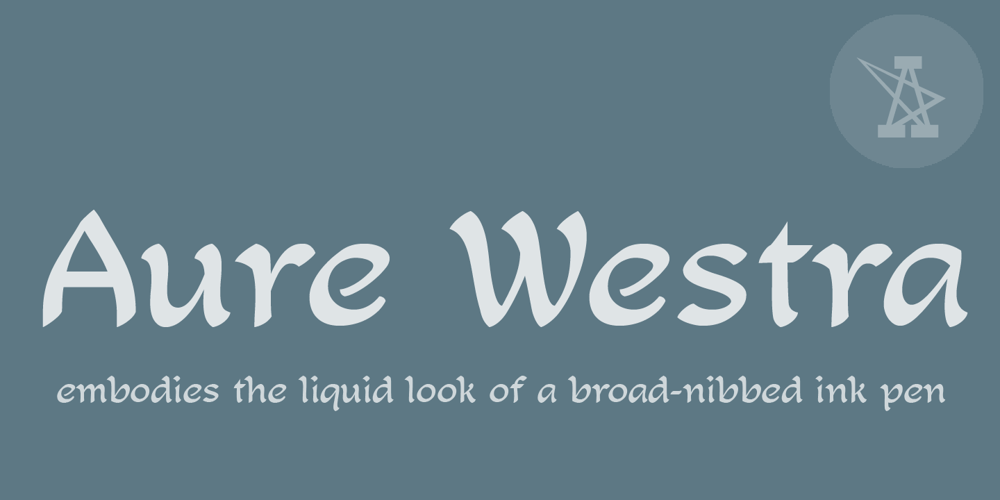
Aure Westra Font Family was designed by Aurora Isaac and published by Aure Font Design. Aure Westra contains 2 styles and family package options. Aure Westra embodies the liquid look of a broad-nibbed ink pen. These bold forms engage the reader with a subtext of exotic wisdom. Westra’s entrancing flow brings a dramatic intrigue to text and titles and an esoteric savor to astrological expressions and chartwheels. Westra is an original design developed by Aurora Isaac, first released in the LP glyphset in 2011. After more than a decade in development, 2018 marks the release of the CJ and KB glyphsets. The CJ glyphset is a full text font with an extended set of lowercase and uppercase glyphs supporting a variety of European languages. Additional glyphs include standard ligatures, four variations of the ampersand, and check-mark and happy-face with their companions x-mark and grumpy-face. Numbers are available in lining and oldstyle versions, with numerators and denominators for forming fractions. Companion glyphs include Roman numerals, specialized glyphs for indicating ordinals, and a variety of mathematical symbols and operators. The CJ glyphset also includes an extended set of glyphs for typesetting Western Astrology. These glyphs are also available separately in the KB glyphset: a symbol font re-coded to allow easy keyboard access for the most commonly used glyphs. The unique look of Aure Westra stands on its own as a text font. Where needed, use the clean lines of Aure Jane to provide contrasting text that will showcase Westra’s exotic nature. Give Aure Westra a trial run! You may discover a permanent place for this font family in your typographic palette. >> AureFontDesign.com